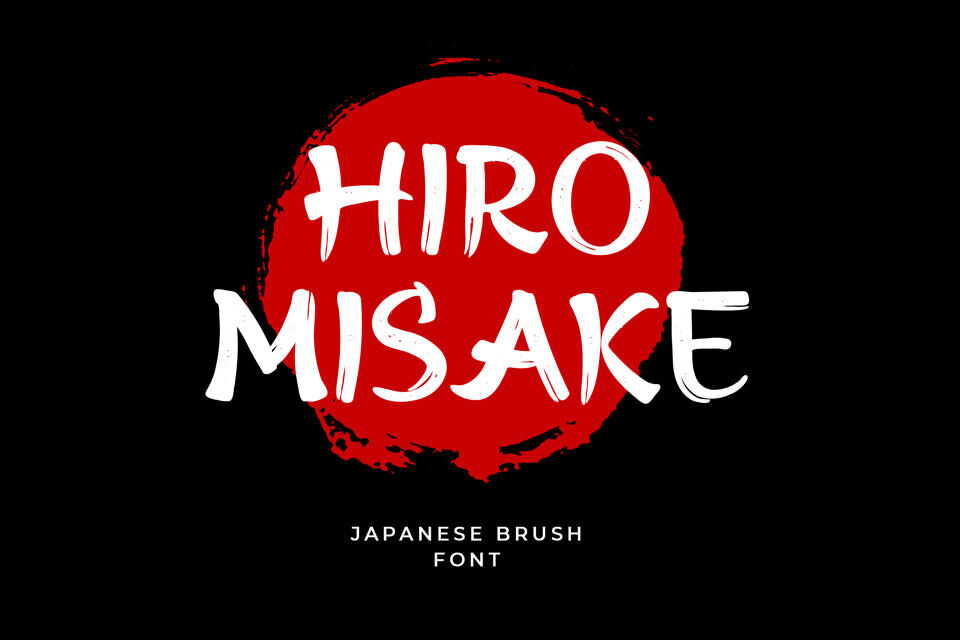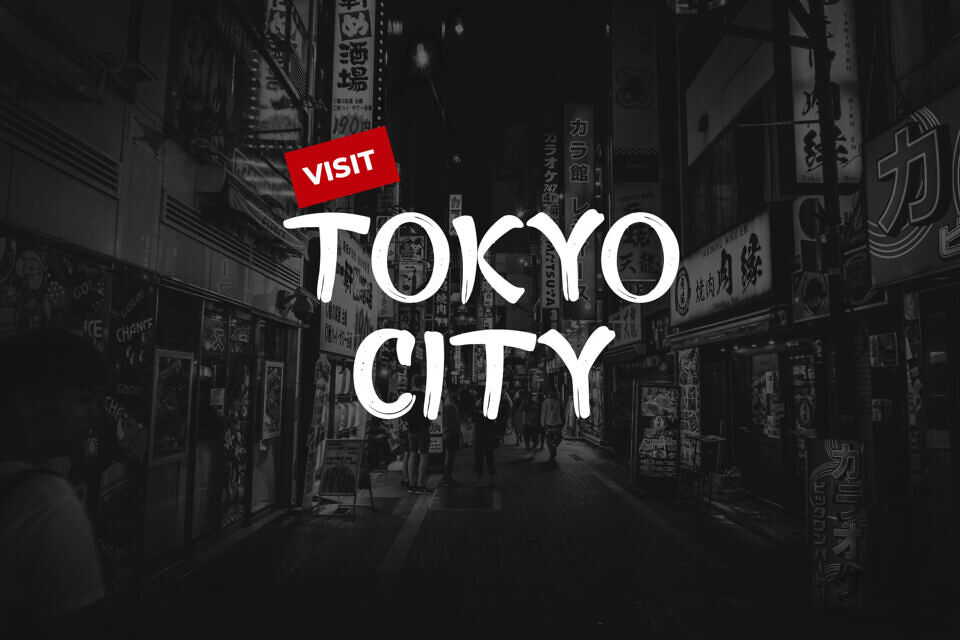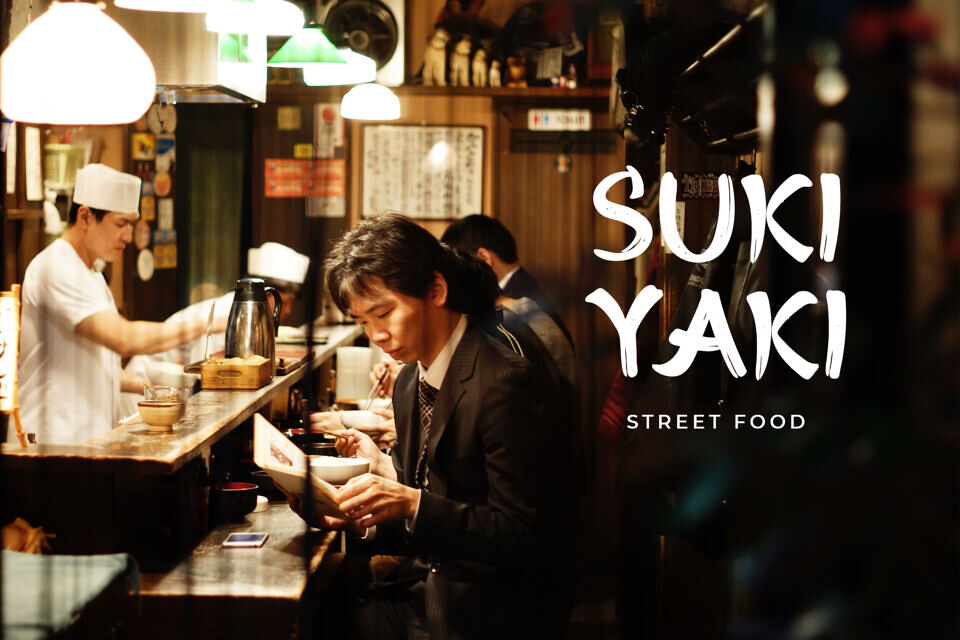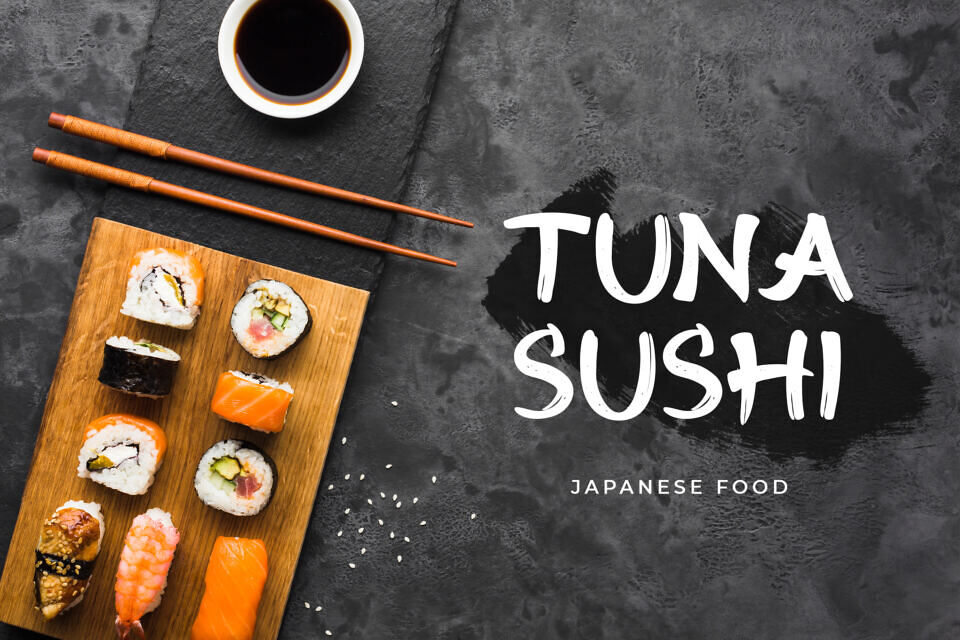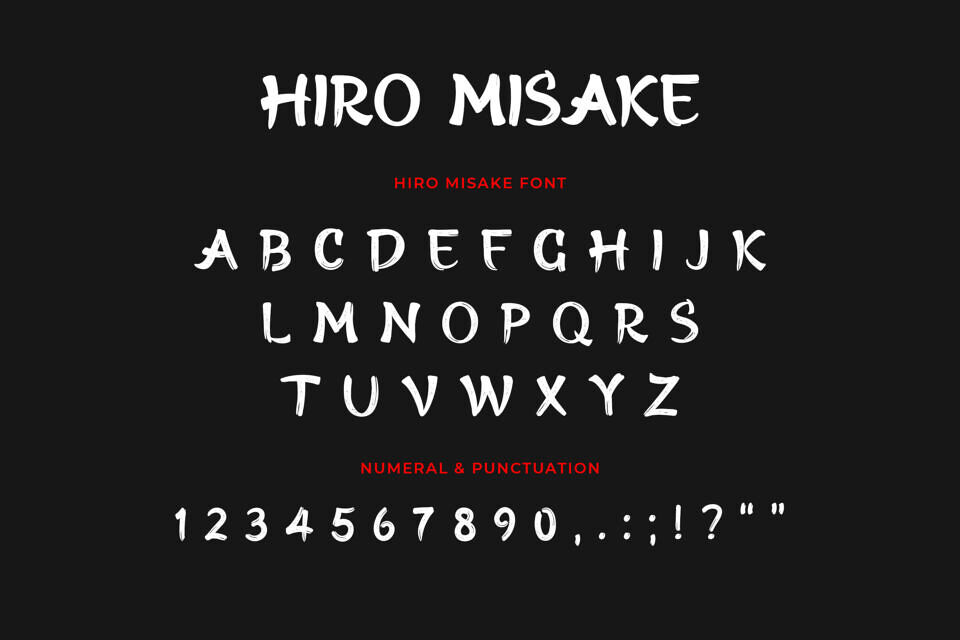
Hiro Misake Font
Hiro Misake is a stylish hand-sweeping brush style that has a distinctive Japanese font style. Made with original hand paintings, this font seems to flow naturally and produces impressive and interesting combinations.
This font is great for clothes, restaurants, cafes, fashion labels, branding, logos, magazines, quotes, packaging, advertisements, and more, which require Japanese brush shades.